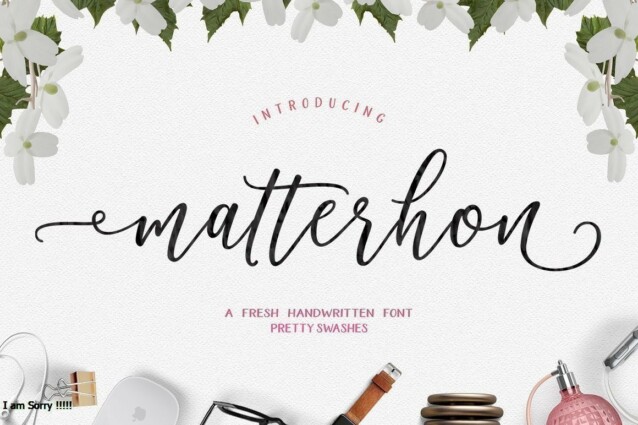
The reason Matterhon Script Font is genuinely exciting is its elegant, flowing rhythm and its charming, dancing baseline, which adds a beautiful sense of handcrafted spontaneity to the text. It masterfully blends traditional calligraphy style with a clean, modern aesthetic, making it highly versatile for contemporary brands. Crucially, the font is PUA encoded, allowing users easy access to a full suite of decorative glyphs, stylistic alternates, and swashes, which are essential for customizing and perfecting the look of your final design.
The Matterhon Script Font family typically consists of two primary styles to maximize its versatility: the signature Matterhon Regular (Script) and sometimes an accompanying Matterhon Upright style. The strength of this family lies in its rich OpenType features, which include swashes, ligatures, and alternates that allow characters to "dance" along the baseline. For a font that adds genuine luxury and grace to your branding, secure your Matterhon Script Font Free Download today.